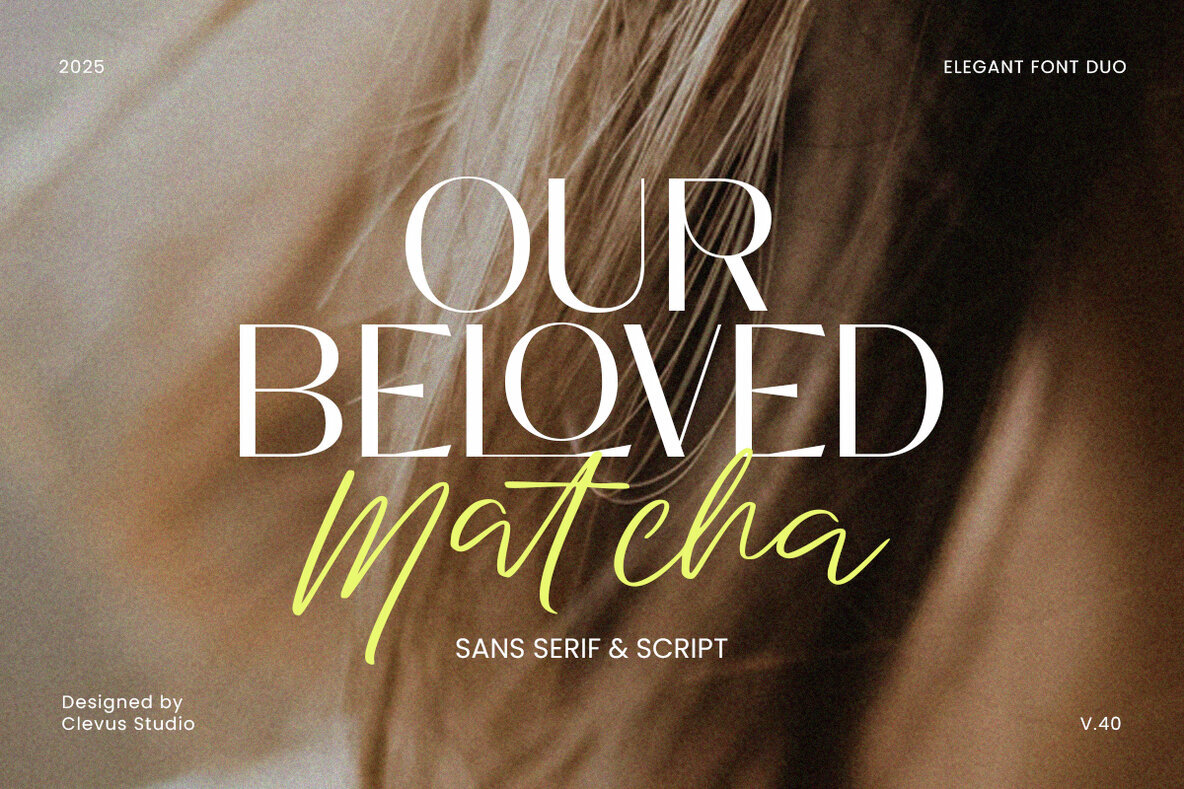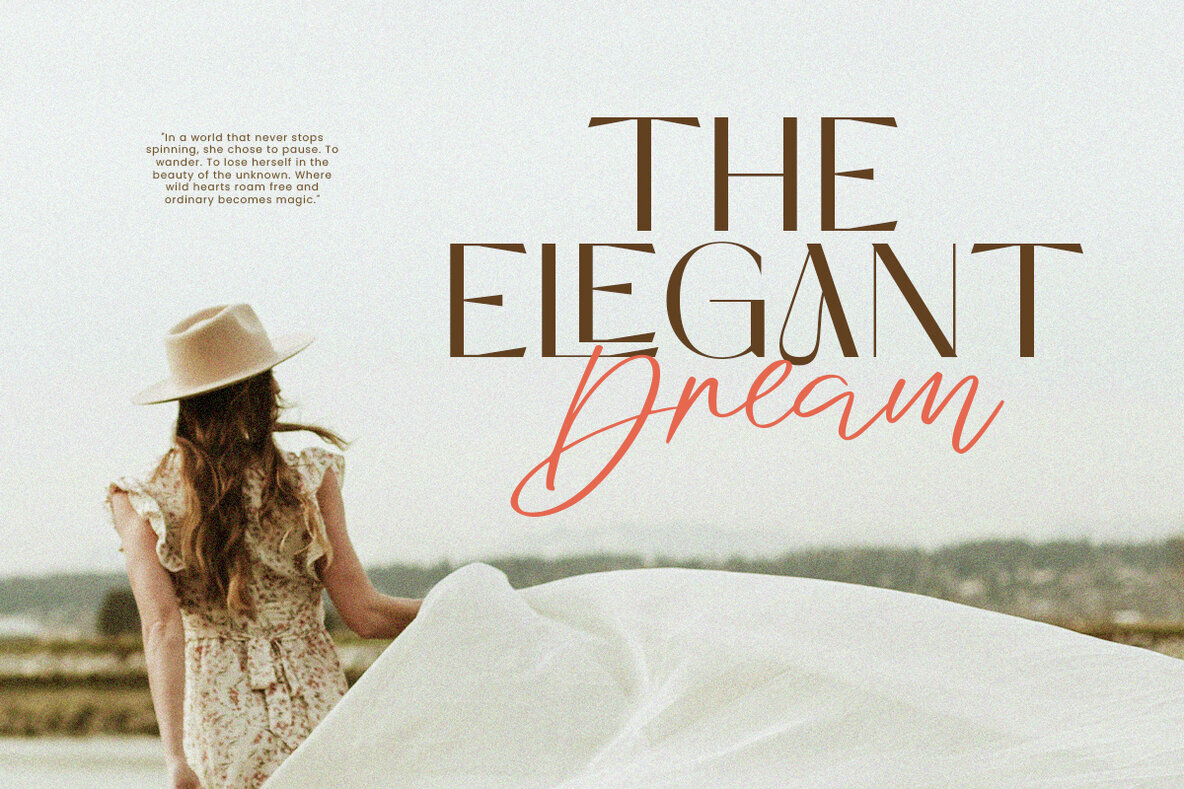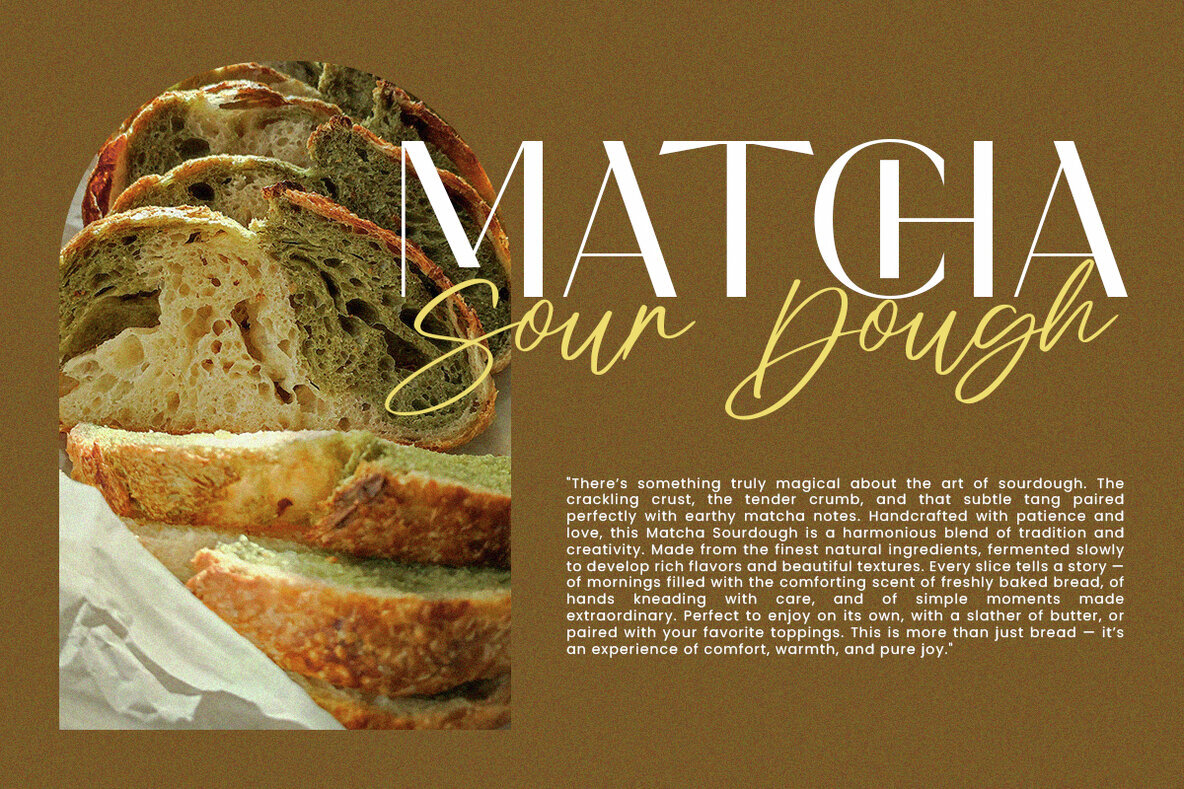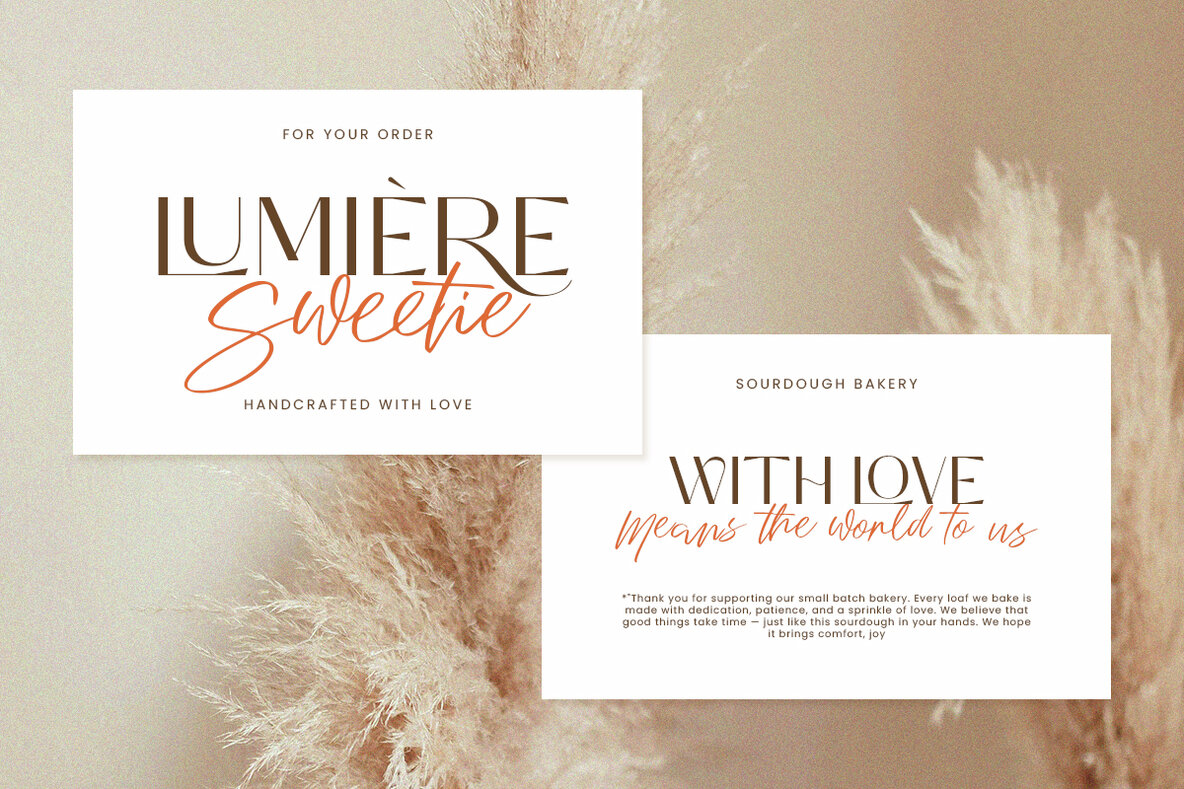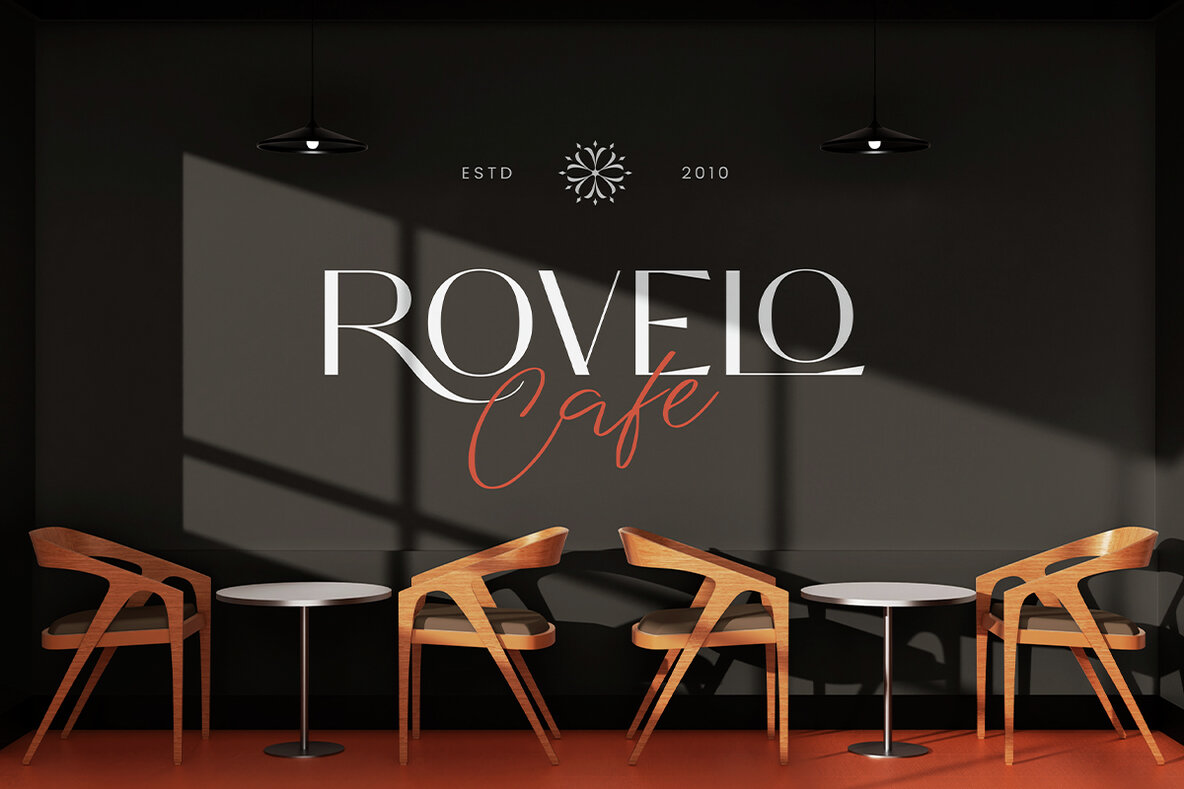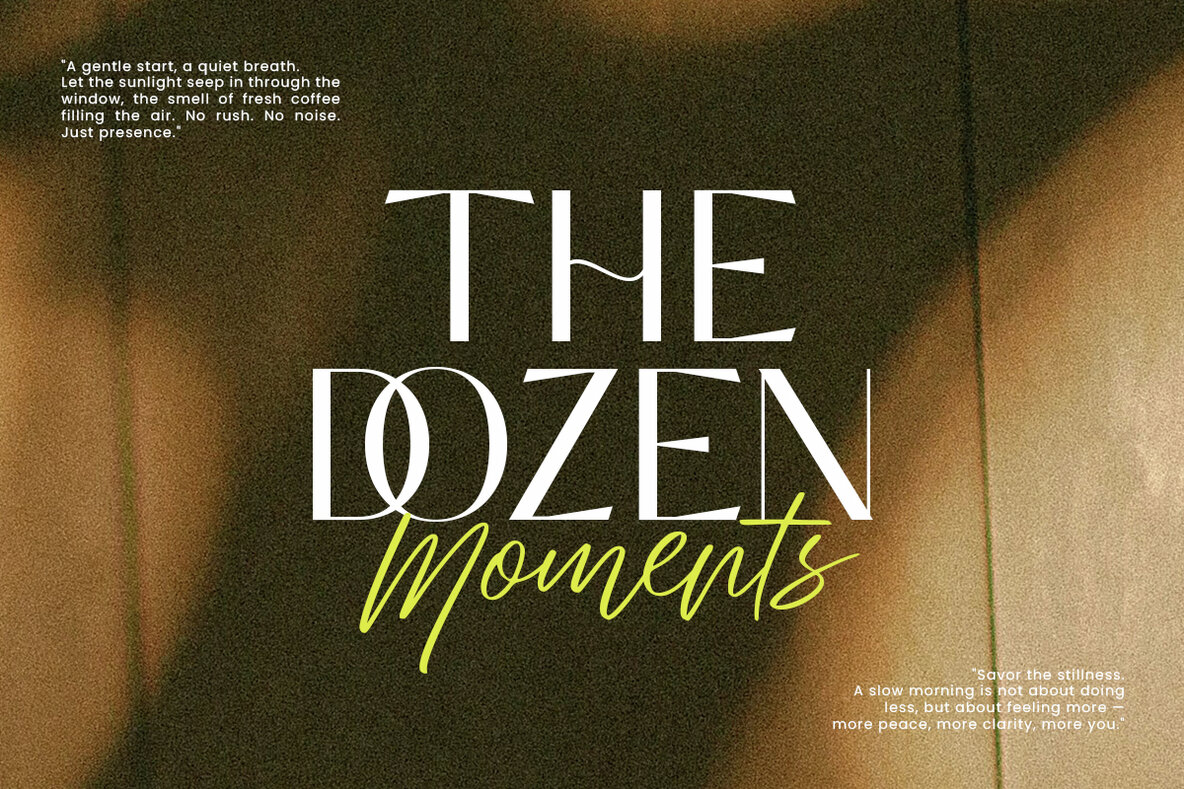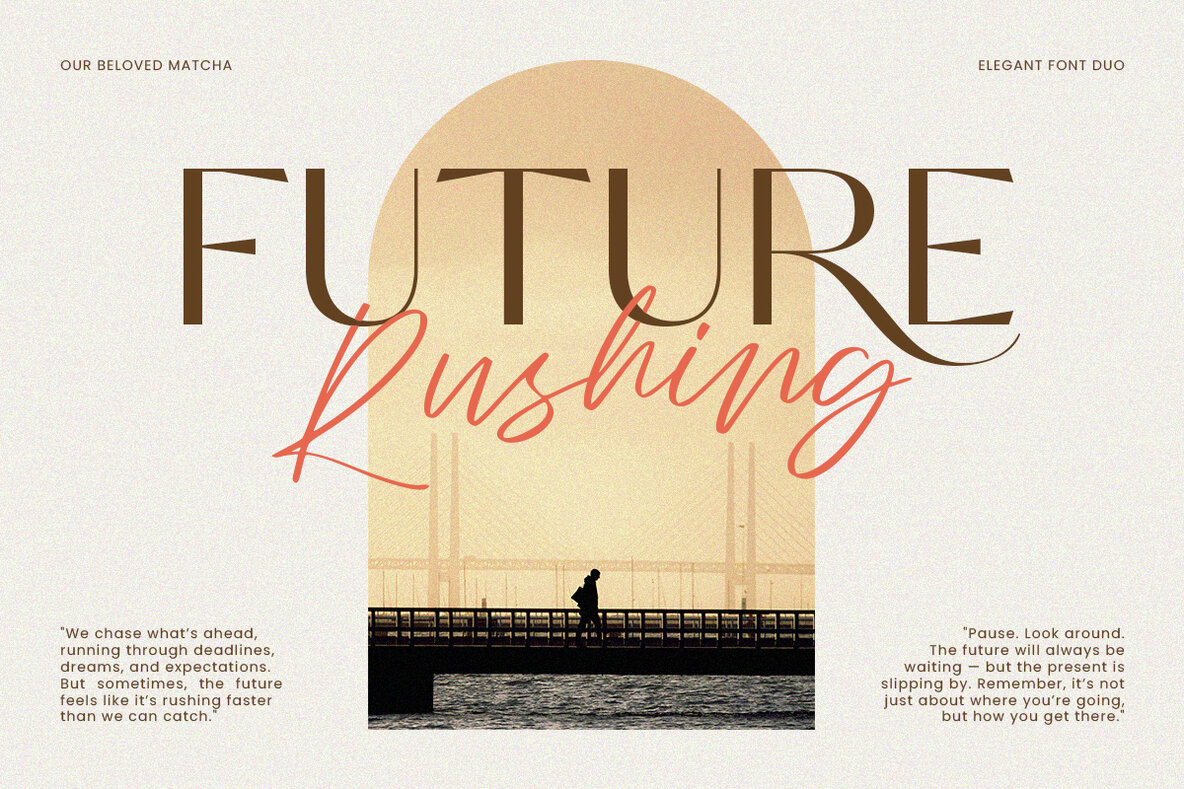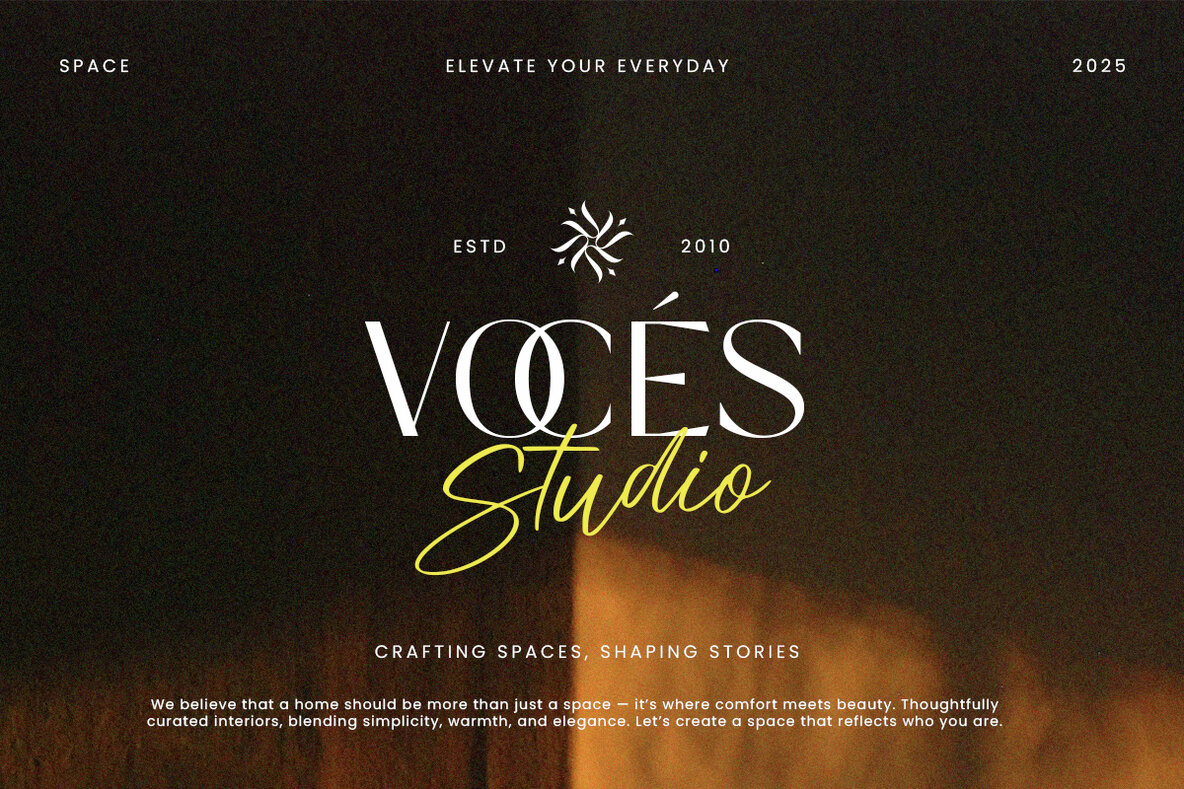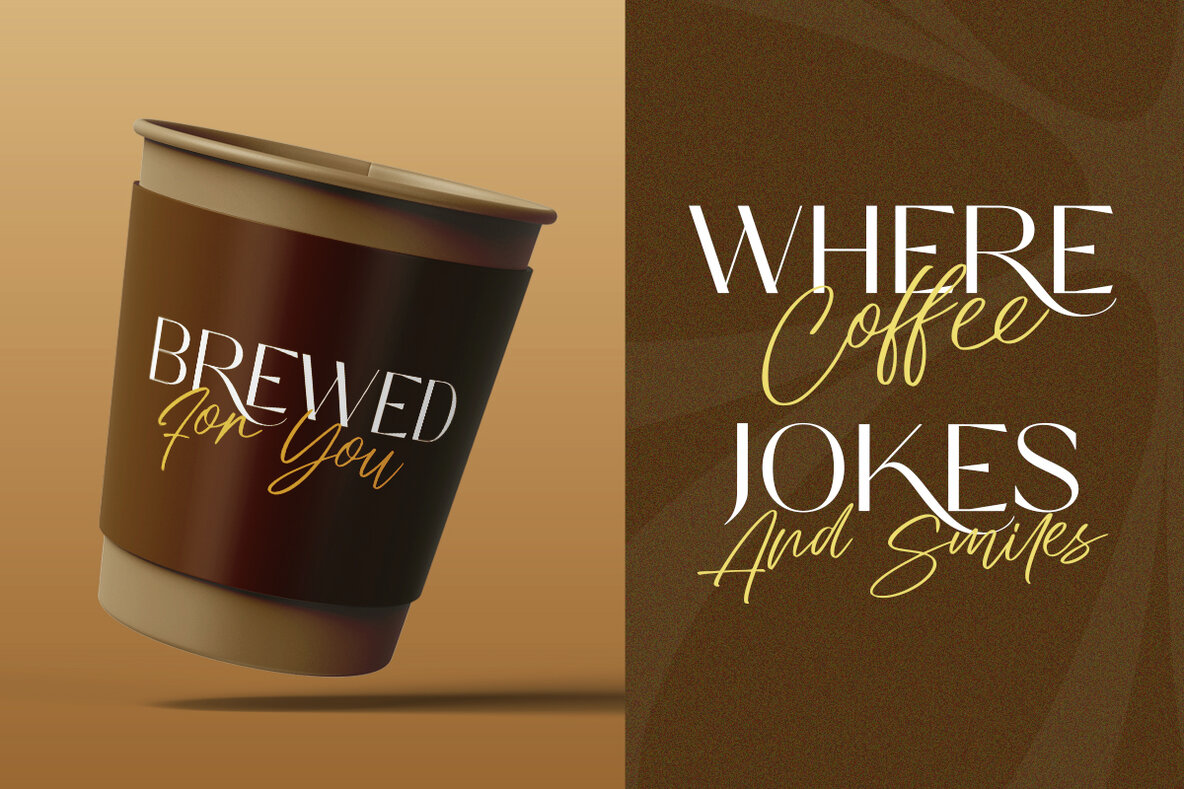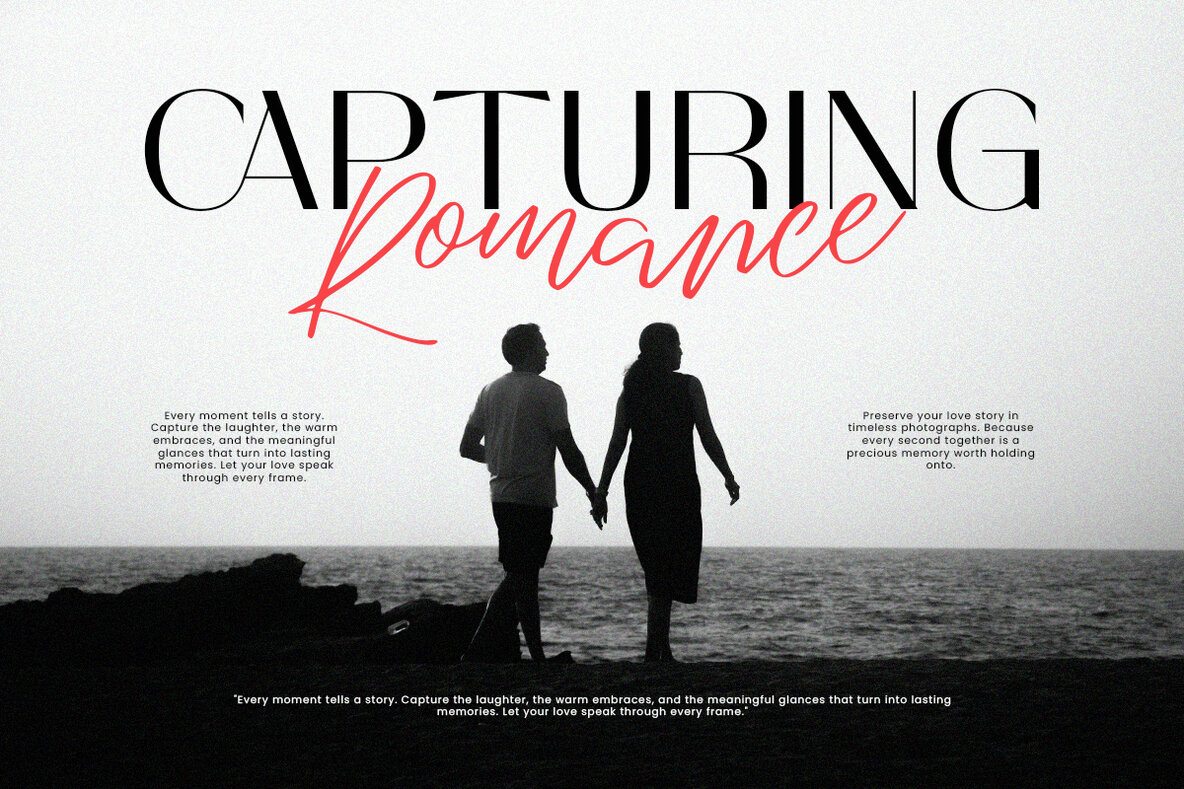
Our Beloved Matcha Font
Our Beloved Matcha Font Duo blends the elegance of a sans serif with the charm of a handwritten script. Tailored for sophisticated design projects, this font set caters to both modern and timeless themes, making it suitable for magazines and branding material. Embrace classic and humanistic aesthetics with this font duo, perfect for digital and print applications such as books, posters, and logos. This font supports numerous languages, including English, French, Spanish, and German, catering to a global audience.Our Beloved Matcha: A Sophisticated Font Duo